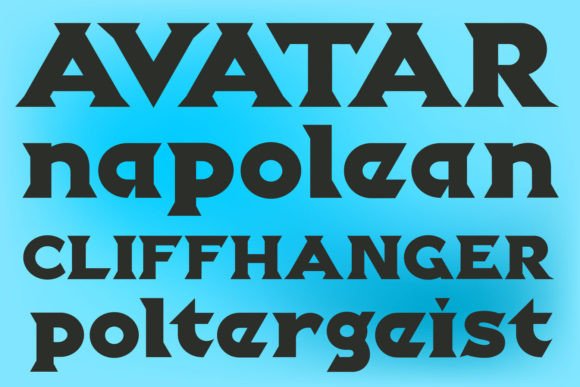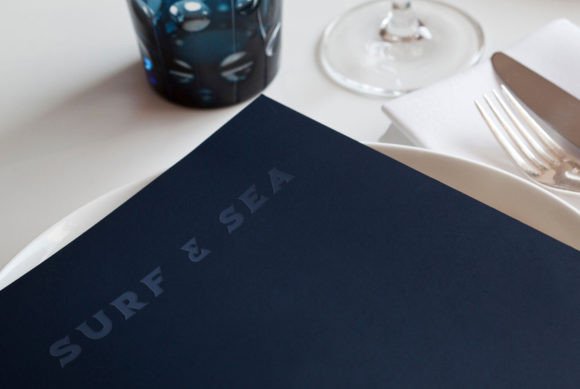
Introduction to Isometra Font
As a designer, have you ever stared at a blank canvas, waiting for inspiration to strike? It’s that moment when you’re about to embark on a new creative project, and the right font can make all the difference. For me, it was the moment I discovered the Isometra Font – a game-changer that added a touch of sophistication to my design.
Isometra Font is a heavy, slab-serif typeface that’s based on an isometric grid, giving it a unique and modern look. Its robust feel makes it perfect for titles, logos, and branding. Similar to Copperplate, but with a more contemporary twist, Isometra Font is a valuable design resource that’s sure to elevate your creative project. Plus, with a transparent background and high-quality design, it’s a free download that’s worth having in your toolkit.
Key Features of Isometra Font
- High-quality design resource ideal for creative projects, offering a unique and stylish aesthetic.
- Includes a range of characters and symbols, making it an excellent choice for logos, branding, and graphic design.
- Designed with a focus on clarity and readability, ensuring your message is conveyed effectively in your creative project.
Honest Review: Isometra Font
As a designer, I’m always on the lookout for high-quality design resources that can elevate my creative projects. Recently, I stumbled upon the Isometra Font, and I’m excited to share my honest review with you.
What works well: ✨ The Isometra Font has a unique, futuristic feel that’s perfect for modern design projects. The font is highly customizable, with a range of styles and sizes to choose from. I also appreciate the transparent background, which makes it easy to integrate into complex designs.
- ✨ High-quality design with a unique, futuristic feel
- ✨ Highly customizable with a range of styles and sizes
- ✨ Transparent background for easy integration
Tips for Getting the Most Out of Isometra Font
To get the most out of Isometra Font, use it in conjunction with a transparent background to create a clean and modern design. You can also experiment with different font sizes and styles to add visual interest to your project.
The Isometra Font is perfect for a variety of creative projects, including logos, brochures, and social media graphics. Its high-quality design and transparent background make it an excellent choice for designers who want to create professional-looking designs without breaking the bank.